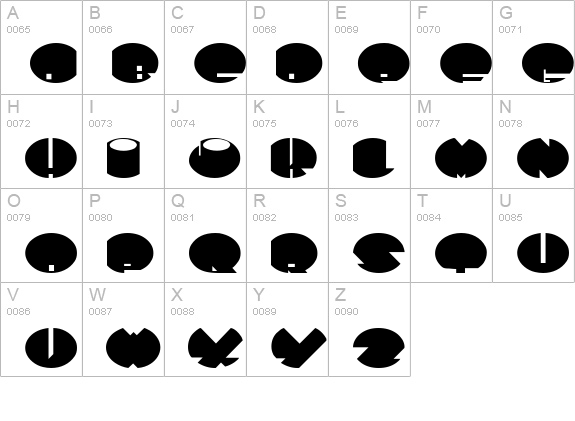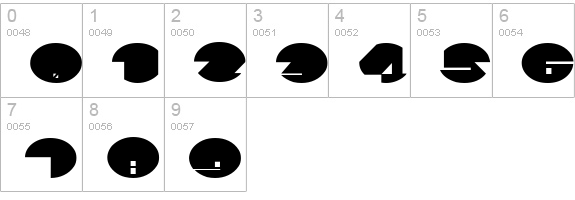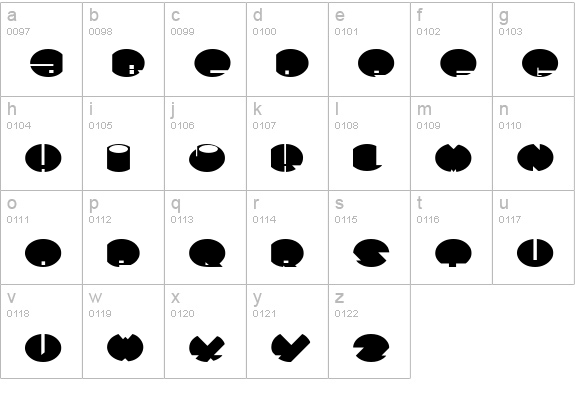
SpaceAce Font Details
Introducing SpaceAce, a mesmerizing font that will transport your designs to the outer reaches of the galaxy. This captivating typeface combines sleek, futuristic lines with a touch of cosmic mystery, making it perfect for any project that craves a cosmic aesthetic. With its bold yet elegant letterforms, SpaceAce is a versatile font that can be used for a wide range of creative endeavors. From captivating headlines to eye-catching logos, from futuristic posters to out-of-this-world website designs, this font will add a touch of celestial magic to your work. But perhaps the most exciting part about SpaceAce is that it is absolutely free! That's right, this extraordinary font is freely available to download at FontsMarket.com. Now, you can unleash your imagination and explore the vast possibilities of SpaceAce without breaking the bank. Whether you're a professional designer, a creative hobbyist, or simply someone who loves the allure of the cosmos, SpaceAce is a font that will take your creations to new heights. So why wait? Download this captivating font today and embark on an interstellar design journey like no other.